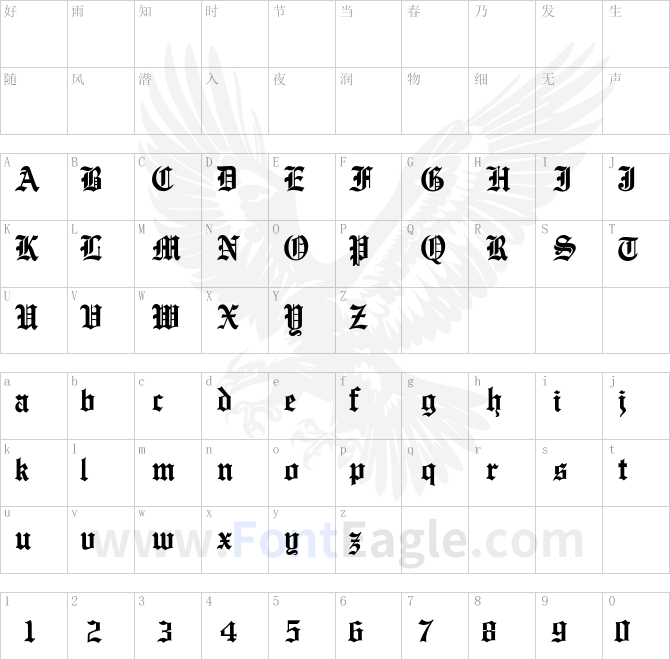
YeOldEnglish is a great font, widely used in graphic design, single-page menu design, poster design and other fields, and is deeply loved by designers.YeOldEnglish download.